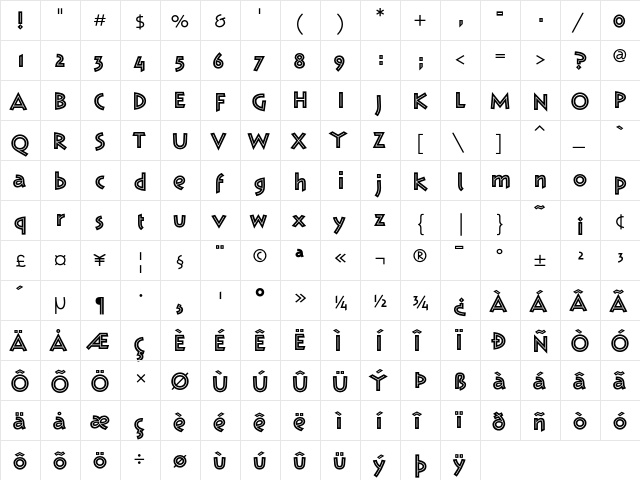
KaffeesatzEF Weiss Font Preview
KaffeesatzEF Weiss
Design Context for KaffeesatzEF Typeface
KaffeesatzEF is a composed and adaptable typeface that performs quietly and consistently across a wide range of design contexts.